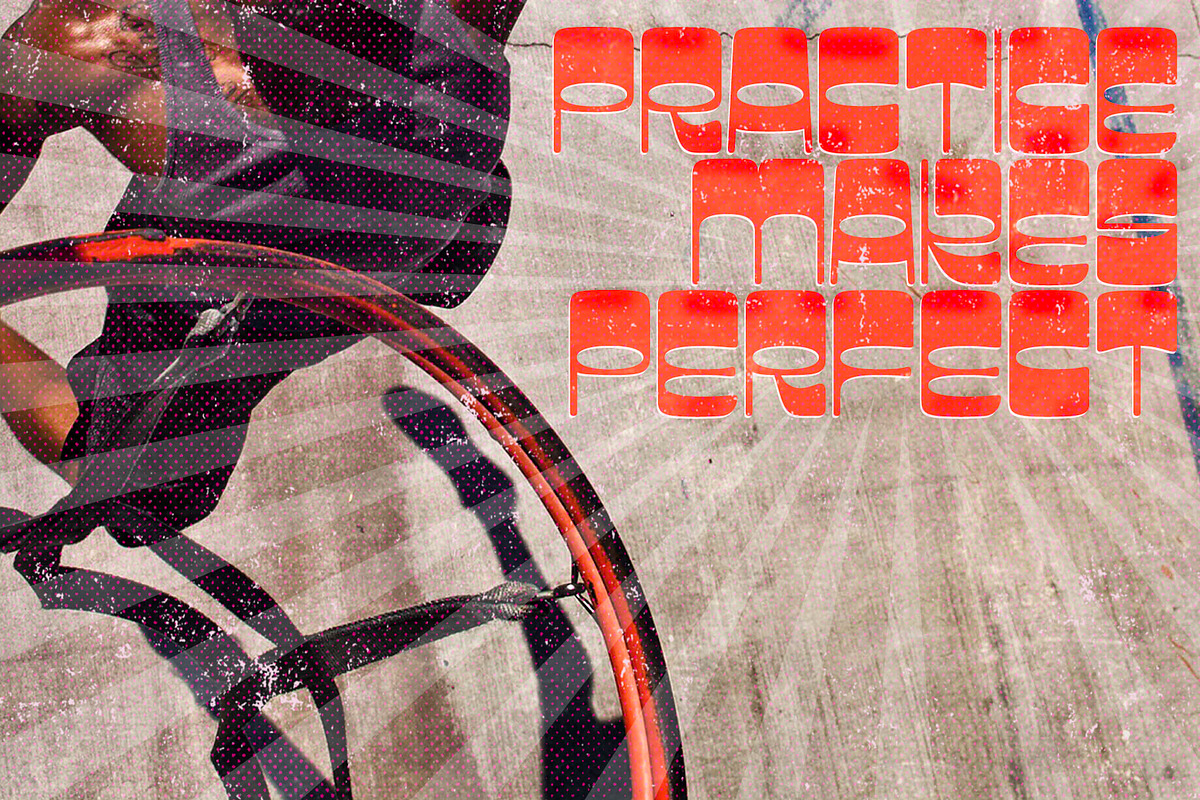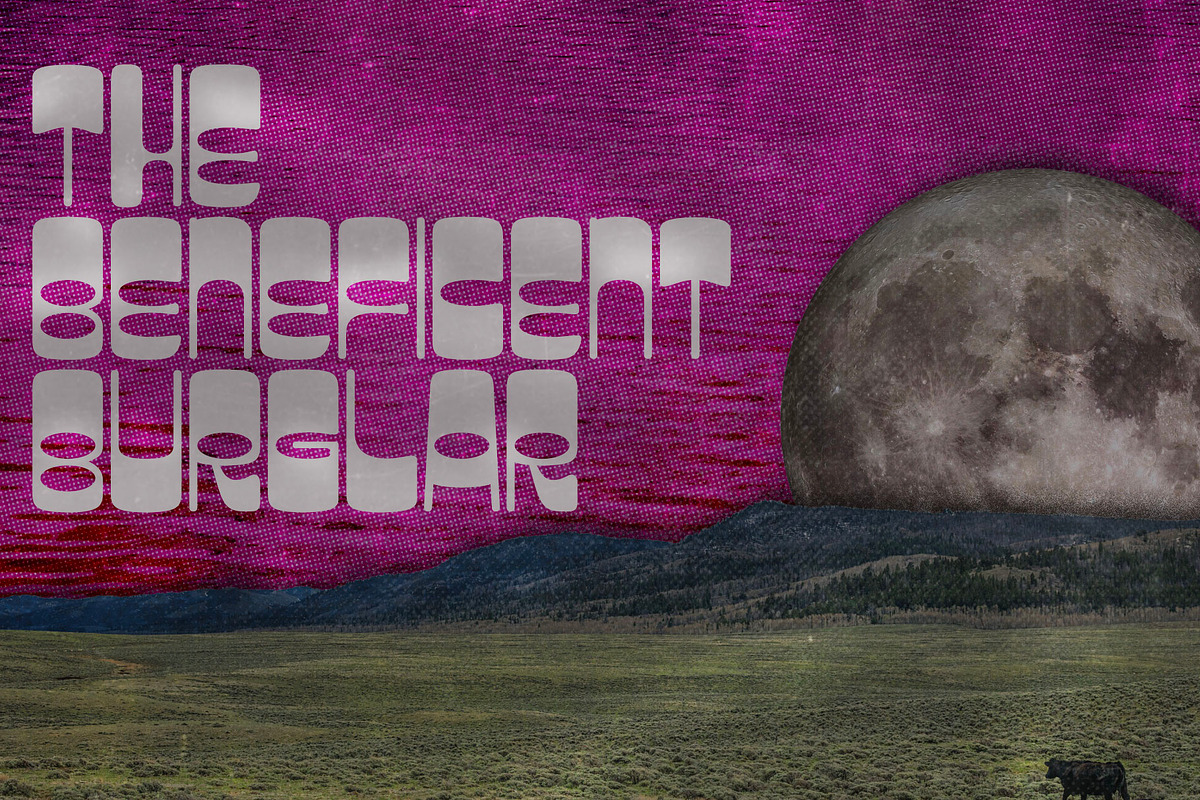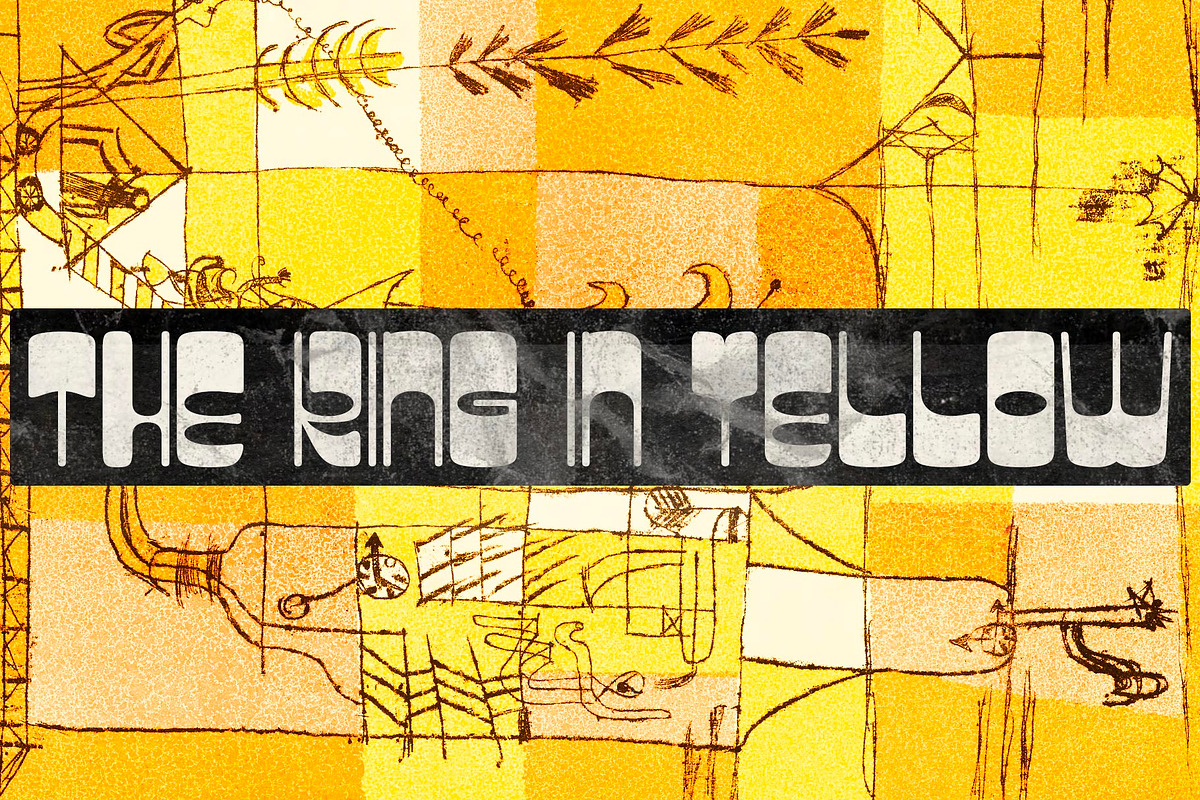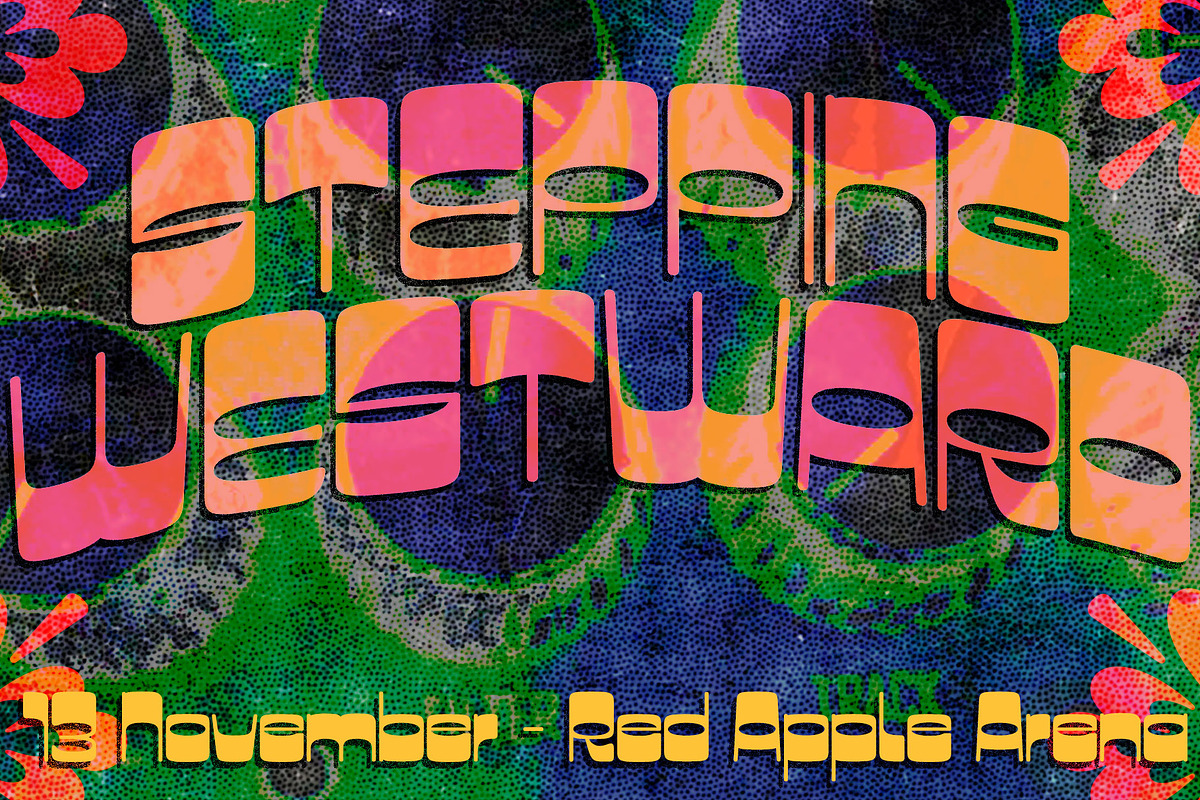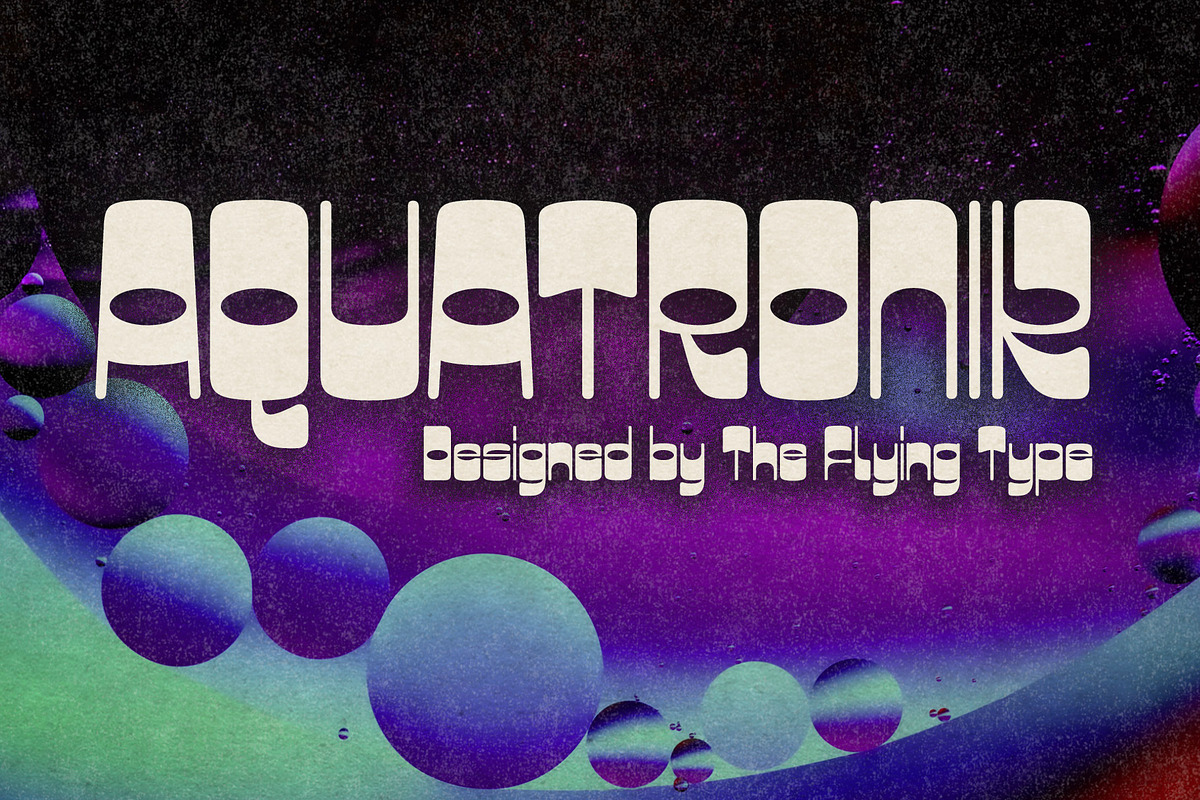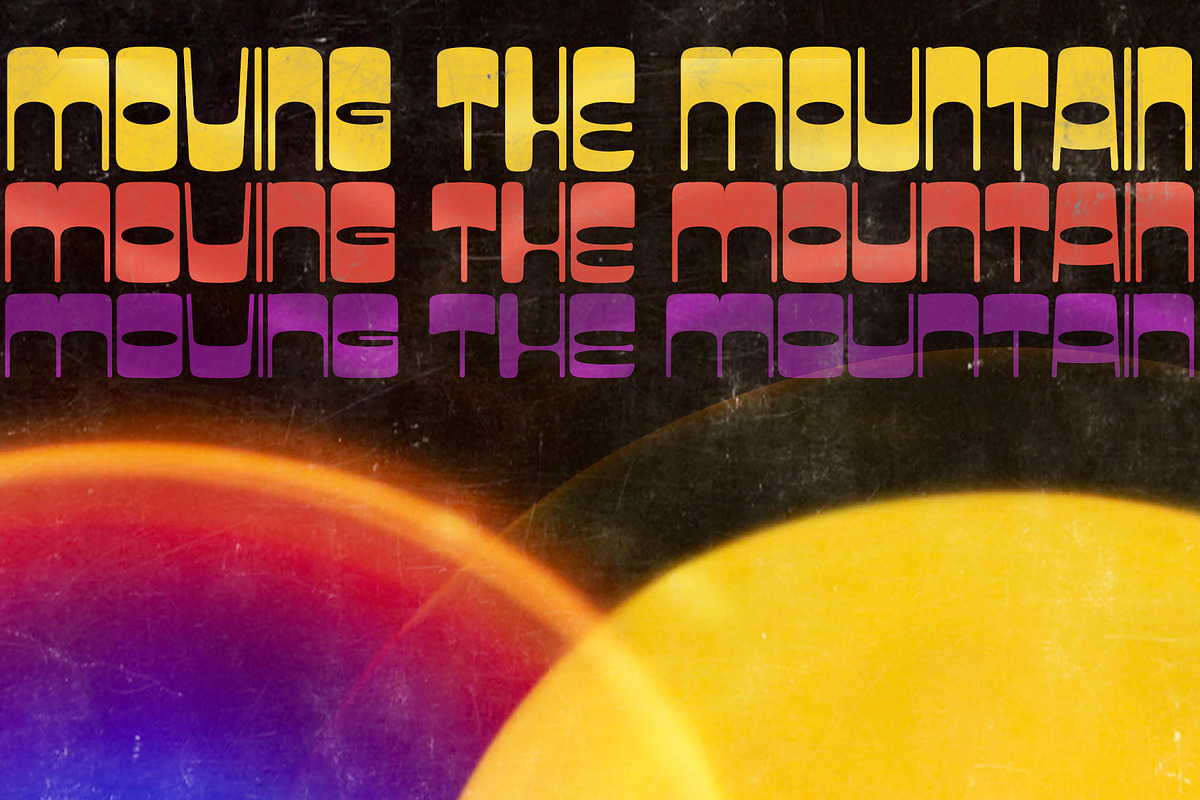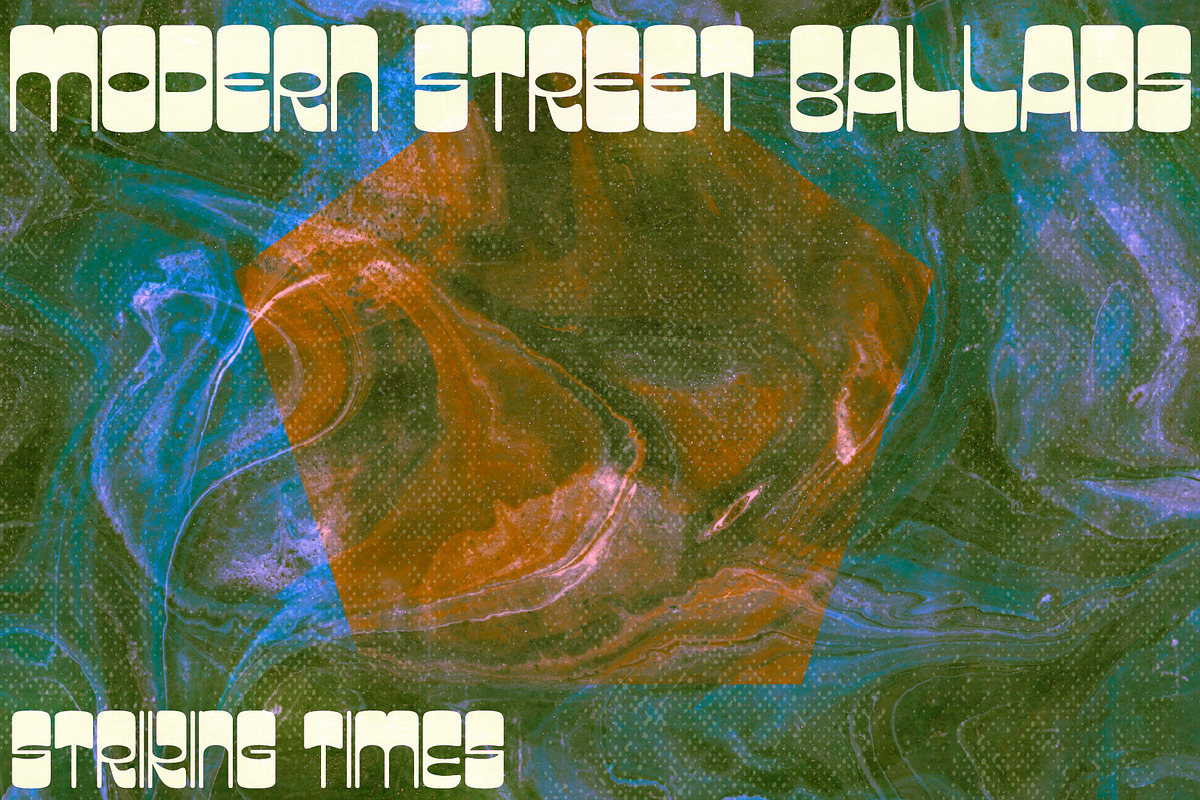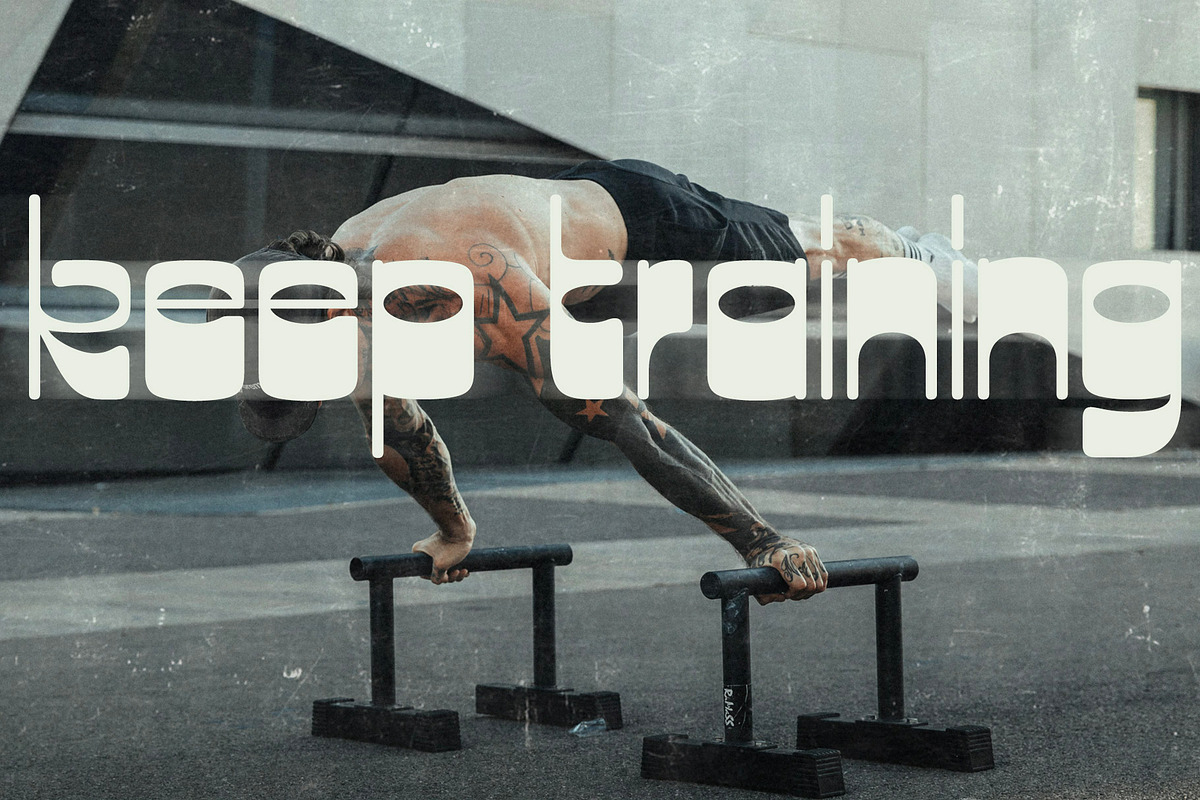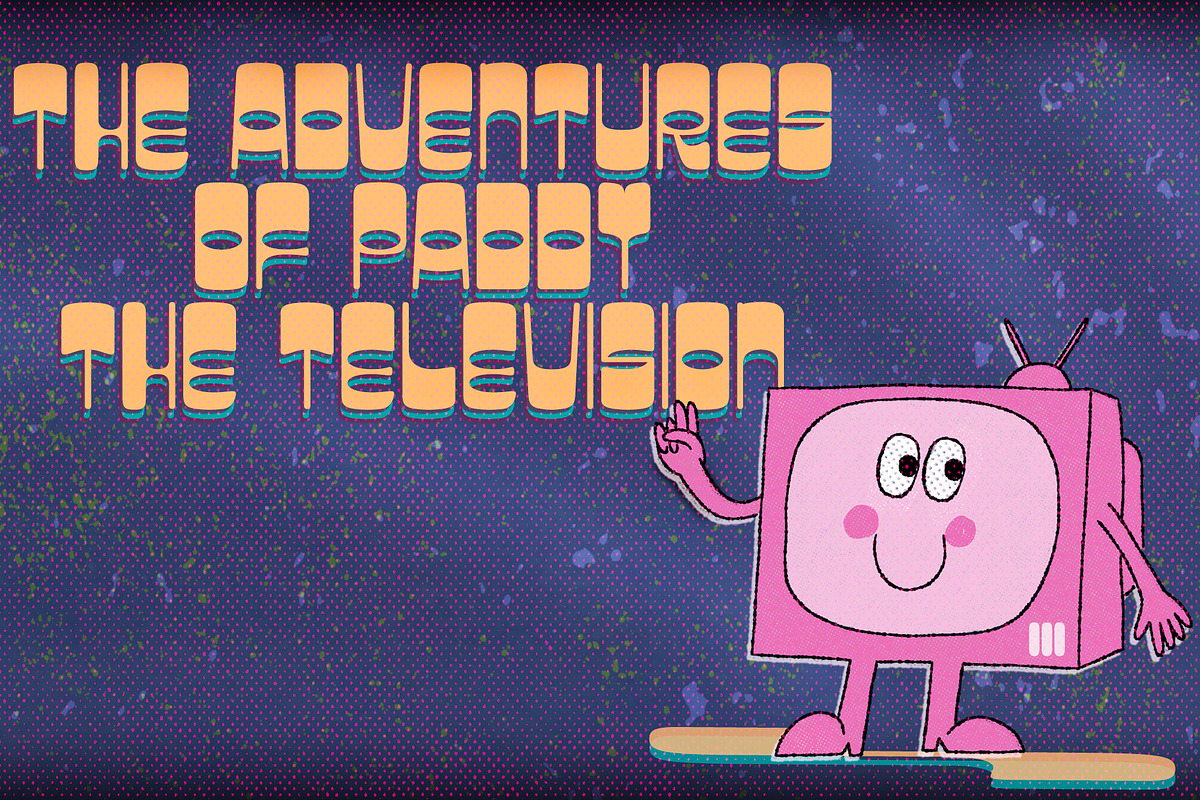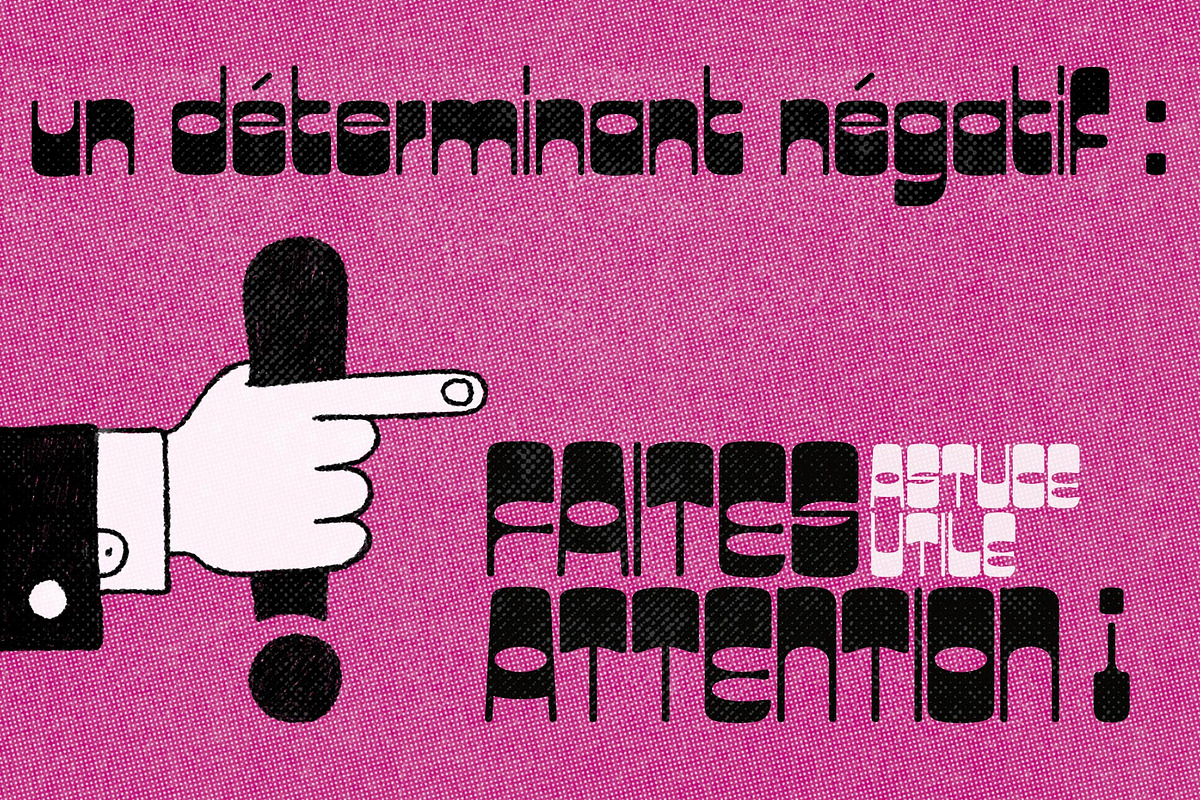
Aquatronik | Retro futuristic
Aquatronik is a super decorative display face with charming retro-futuristic flair.
It brings alternate glyphs for some letters and numerals and has extended language coverage, speaking more than 200 languages. The family includes three widths, for added versatility. Aquatronik is an excellent pick for eye-catching designs, including posters, book covers, album art, editorial, apparel, and many more. Have fun!
The Aquatronik family includes:
- Three widths: regular, semi-expanded, and expanded
- Upper and lowercase glyphs
- Punctuation and Symbols
- Alternates for some letters and numerals
- Broad language coverage